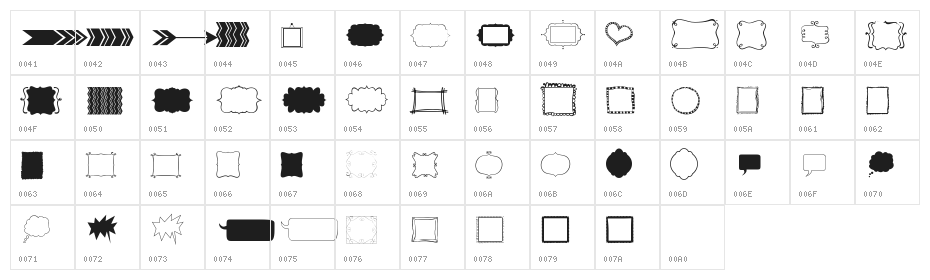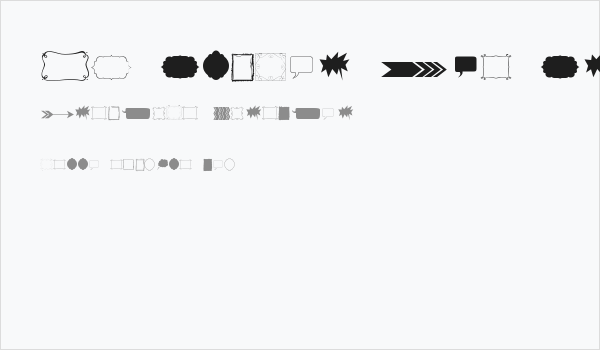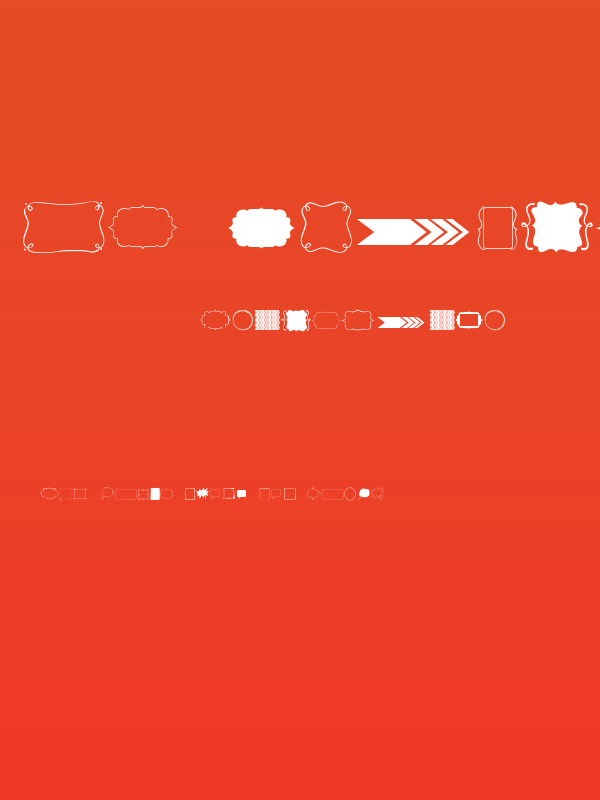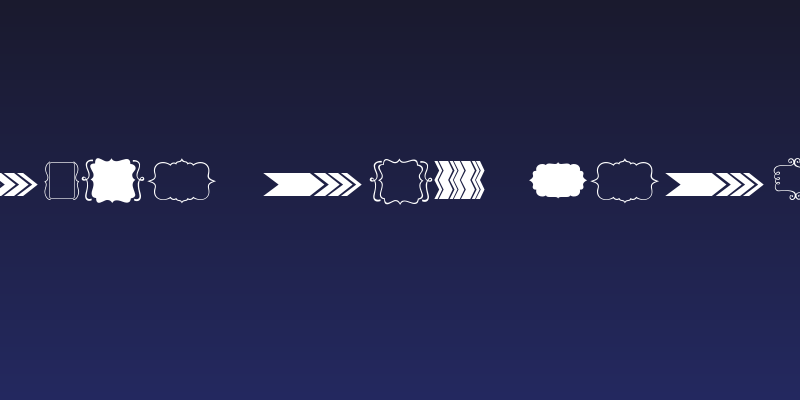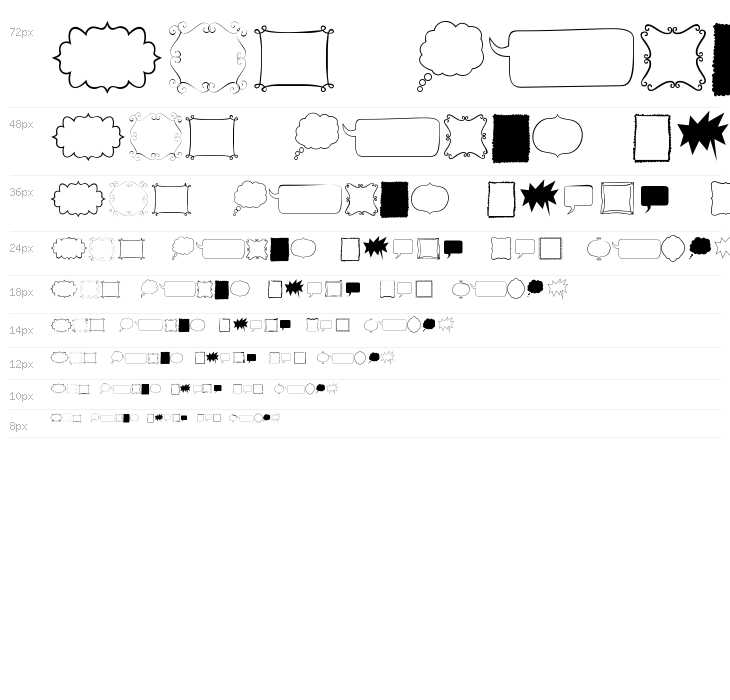
KG Flavor And Frames Two Font
KG Flavor And Frames Two Description
This collection features a variety of decorative frames and arrows, each with unique designs ranging from simple geometric shapes to intricate, ornate patterns. The frames include scalloped edges, zigzag patterns, and heart shapes, offering a playful and whimsical feel. Arrows are bold and directional, adding a dynamic element to the set. The frames vary in thickness and style, some with solid fills and others with delicate outlines, providing versatility for different design needs. This set is ideal for adding a creative touch to projects, offering a mix of modern and vintage aesthetics.
| Use Case | Logos, Decorative elements |
| Proposed Projects | Ideal for scrapbooking, invitations, greeting cards, and digital design projects where decorative elements are needed. |